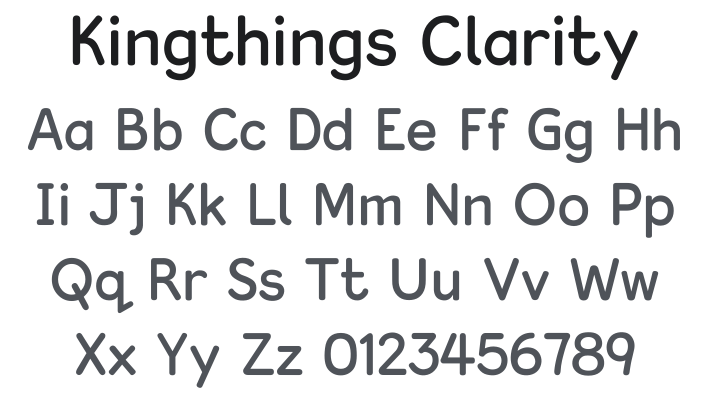
Kingthings Clarity Font
About Kingthings Clarity
Many moons ago, I had an email asking me if I had thought of making a Dyslexia font - one where letters aren't easily confused, I hadn't - now I have. I apologise if there are still confuse-ables - email me and let me know.